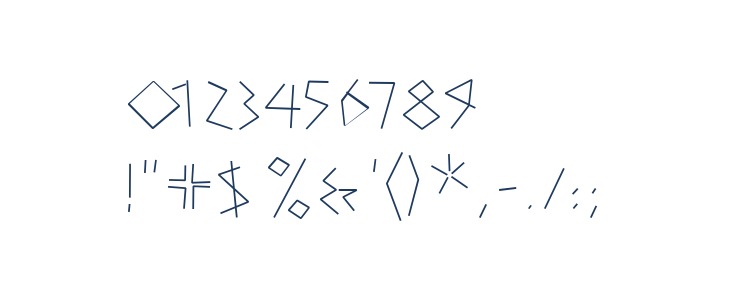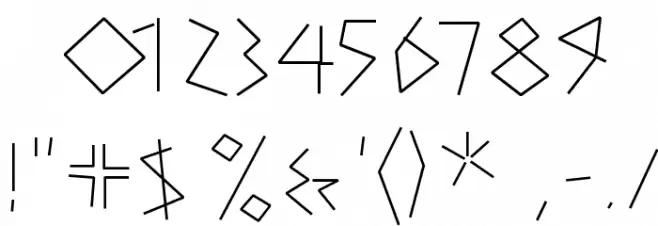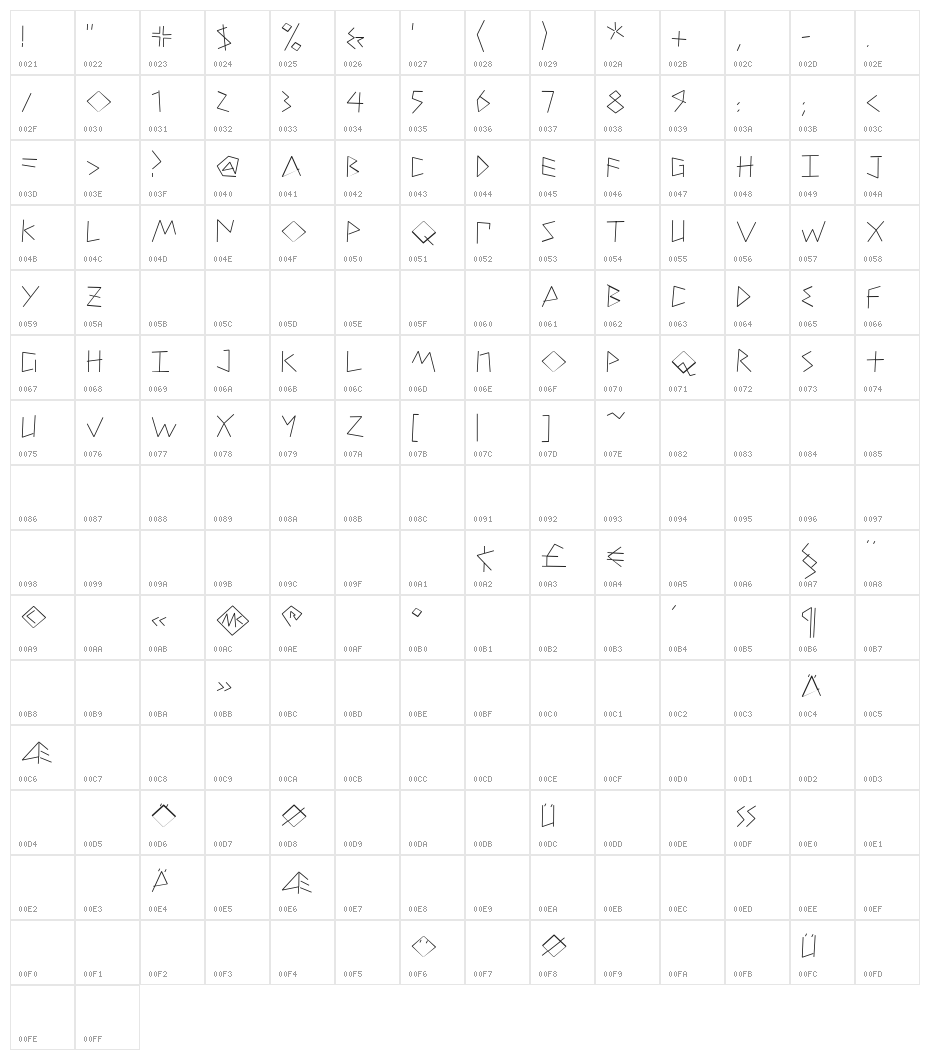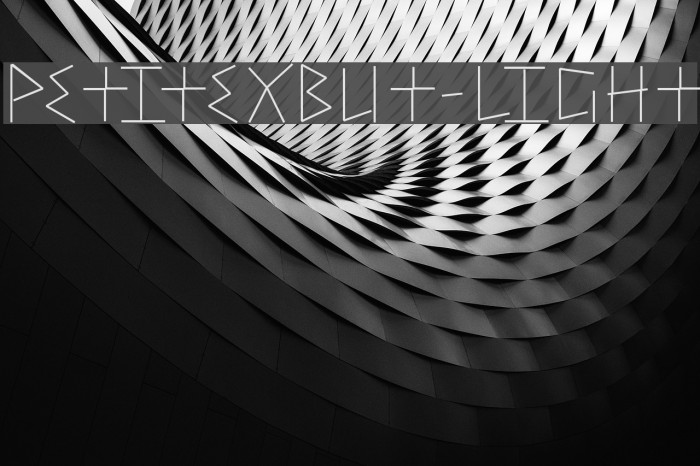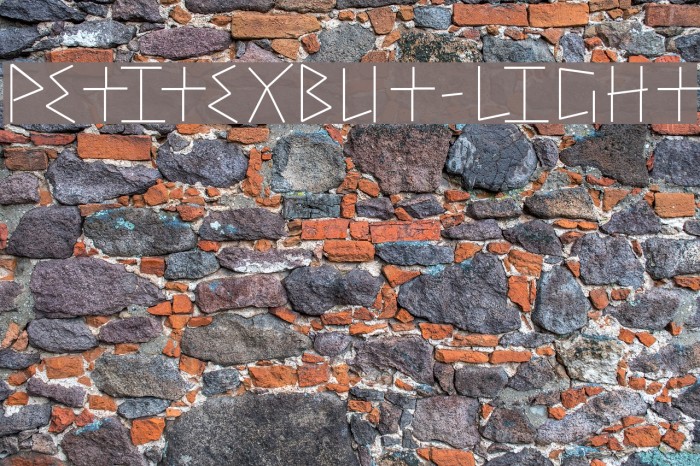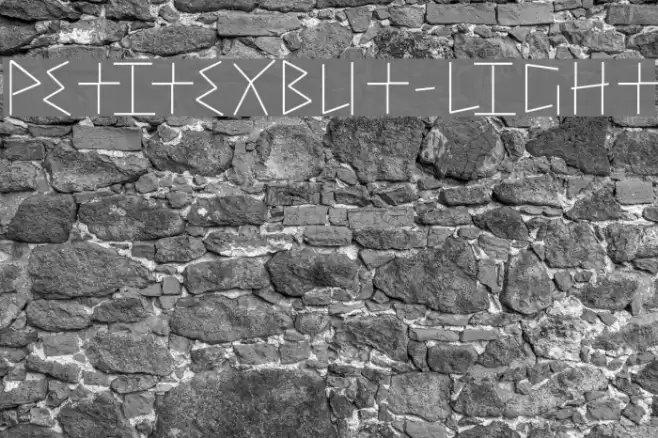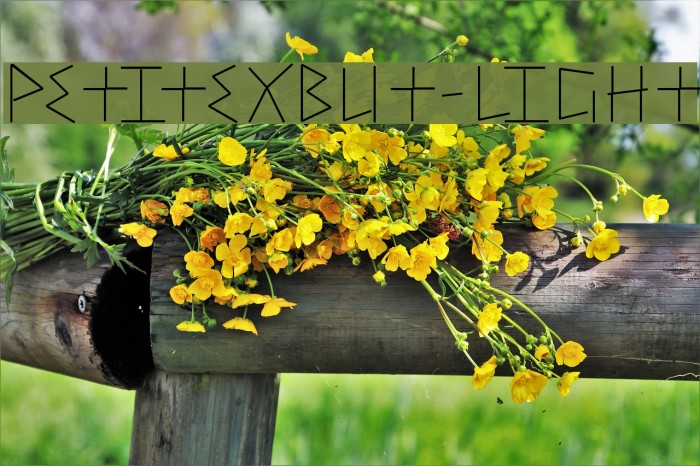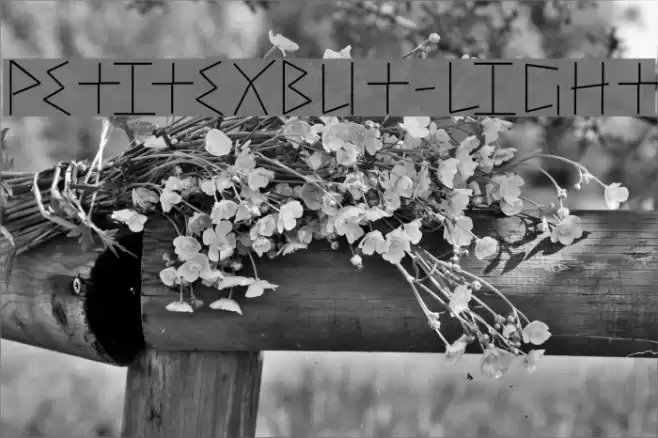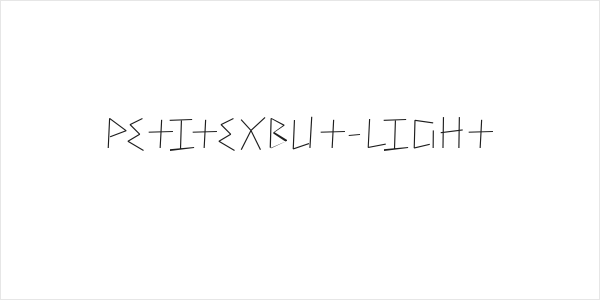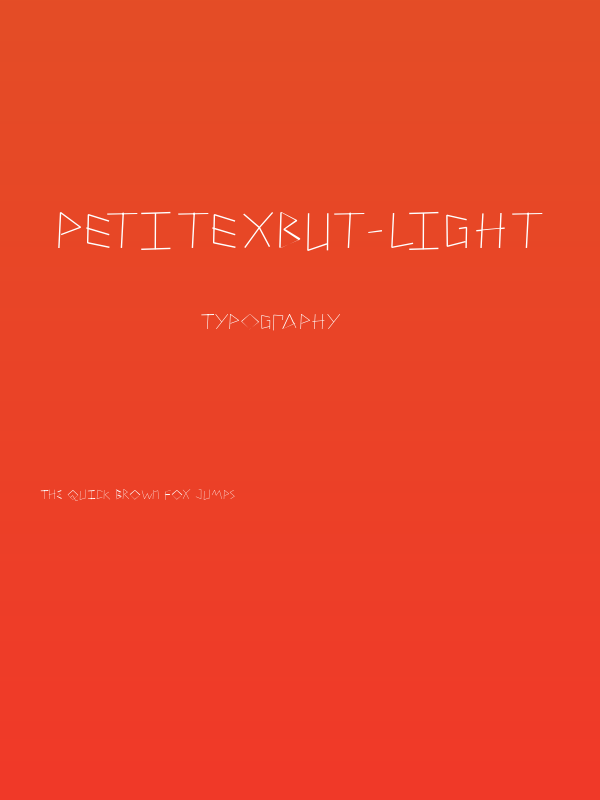
PetitexBut-Light Font
PetitexBut-Light Description
This font features a unique, geometric design with angular lines and sharp edges, creating a modern and abstract appearance. The characters are constructed with a series of straight lines and angles, giving it a distinctive, almost futuristic look. The uppercase and lowercase letters maintain a consistent style, with a uniform stroke width that adds to its clean and minimalist aesthetic. The numerals and special characters follow the same design principles, ensuring a cohesive overall appearance. This font is ideal for projects that require a bold and unconventional typeface.
| Proposed Projects | Ideal for futuristic designs, tech branding, posters, and modern art projects. |